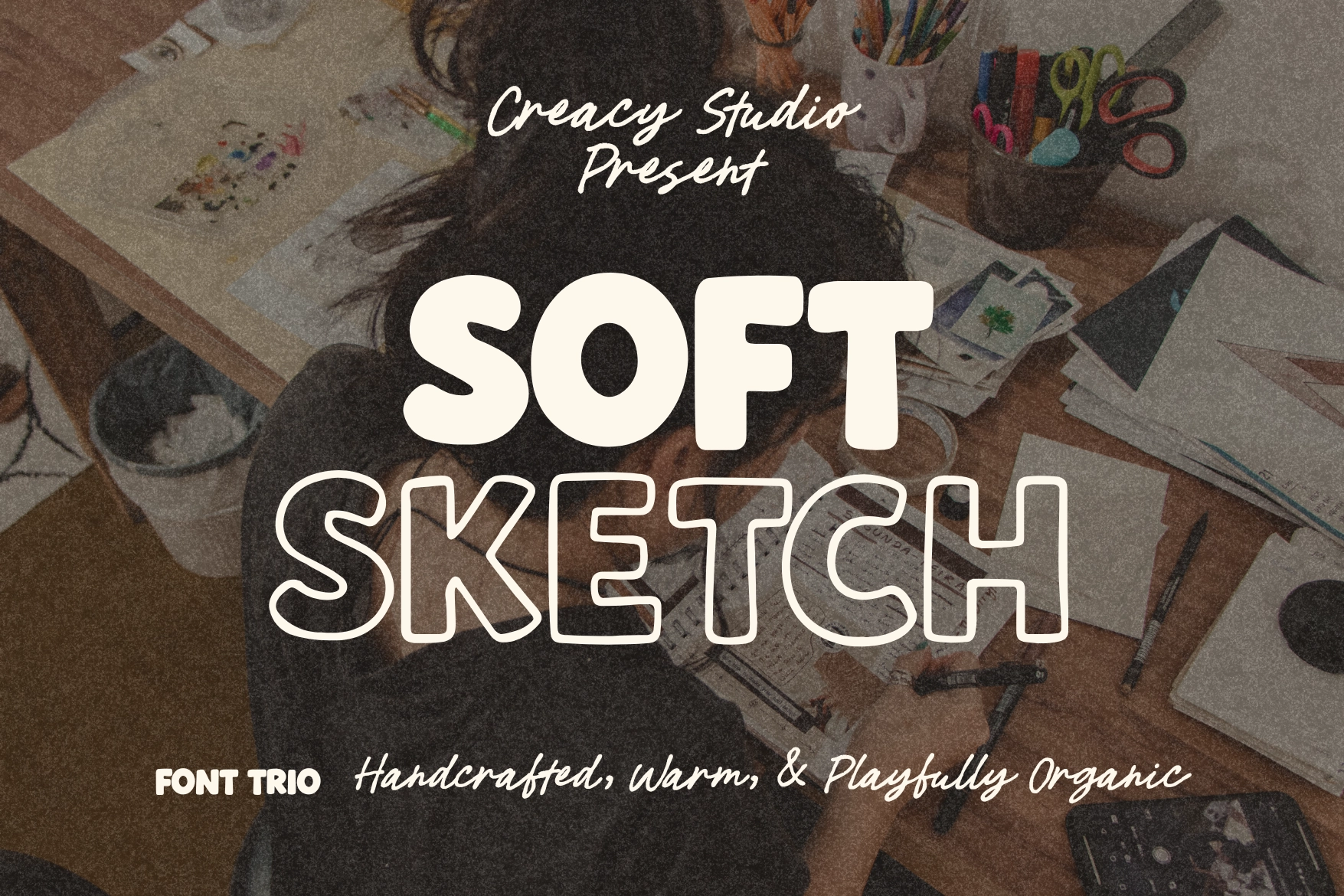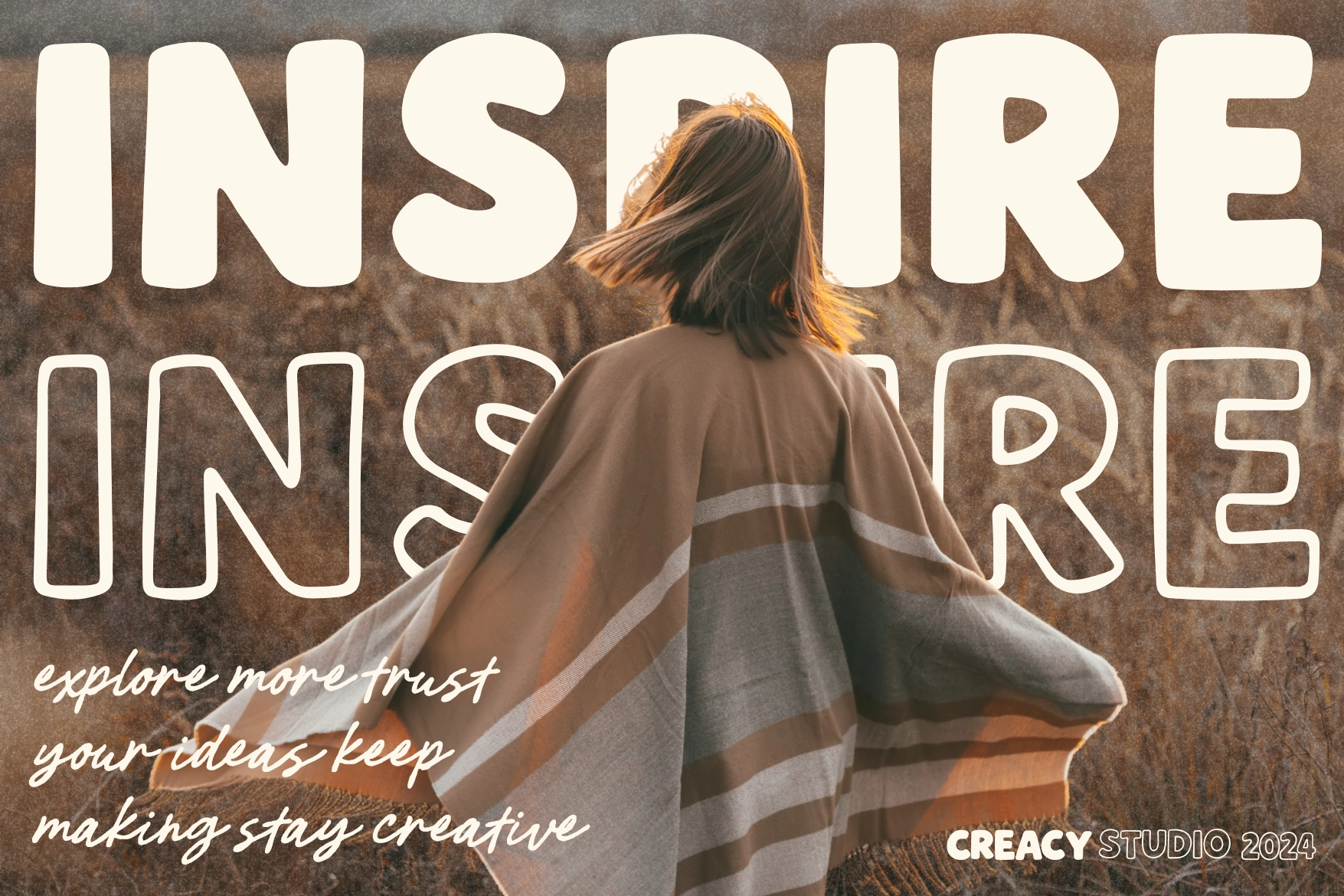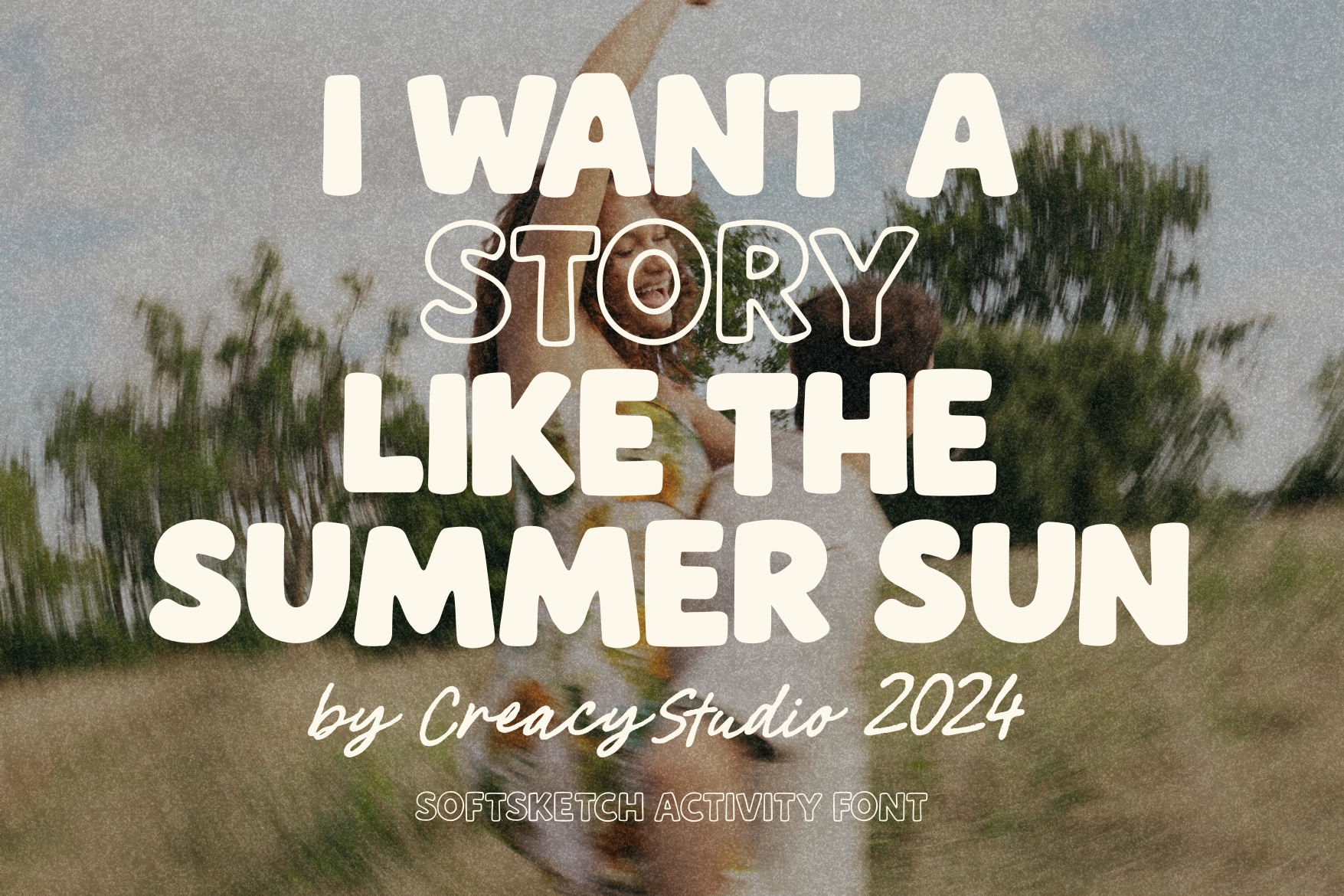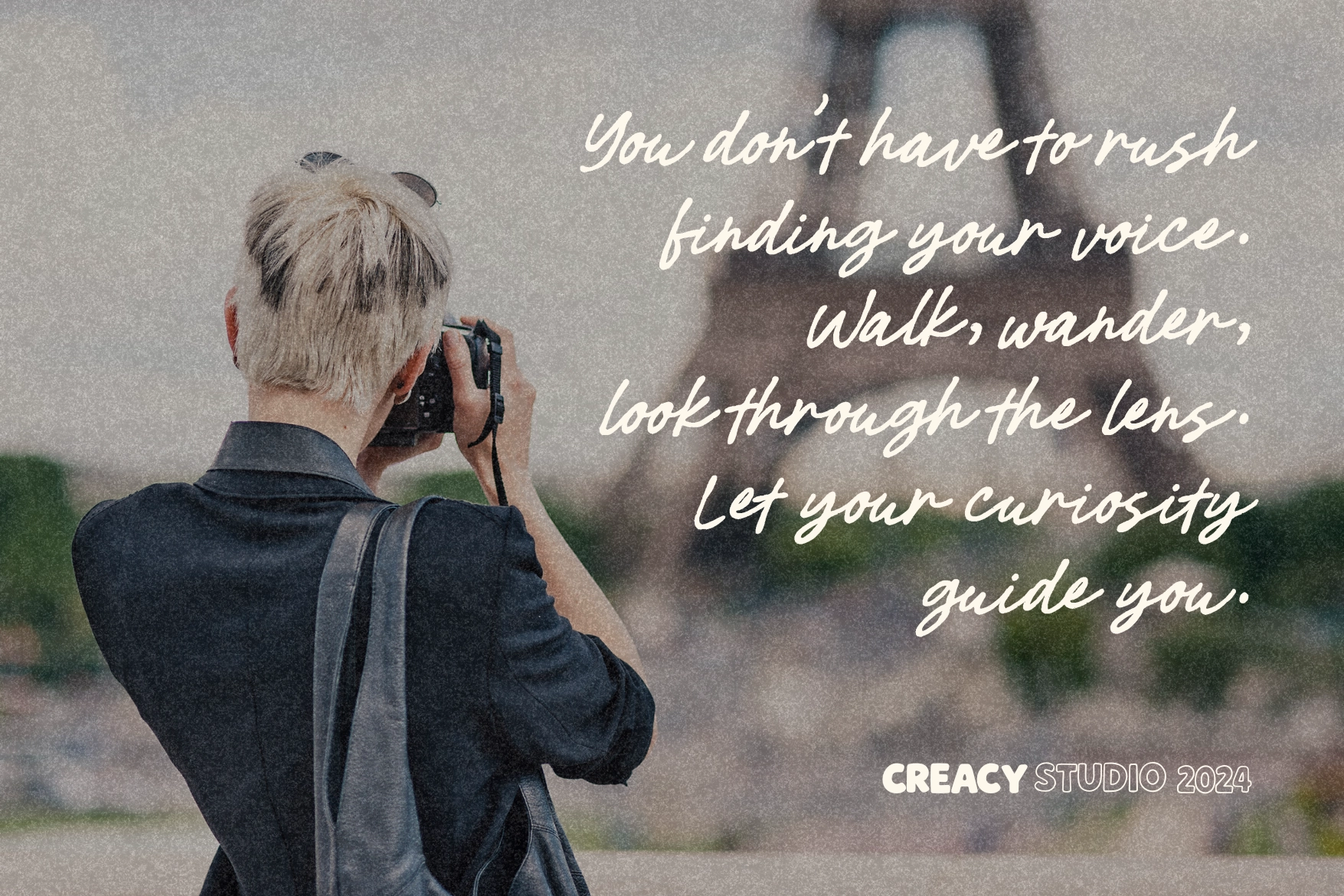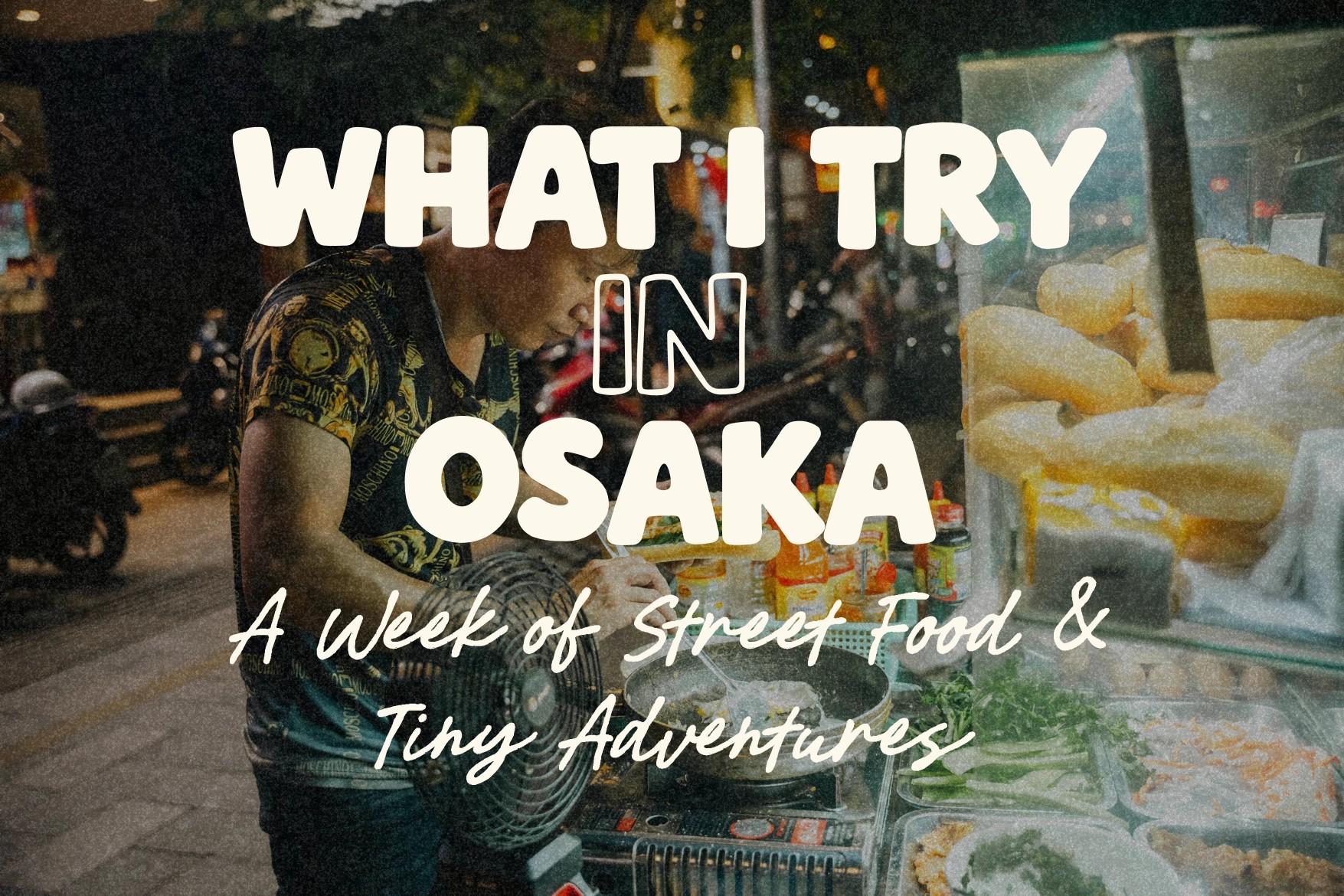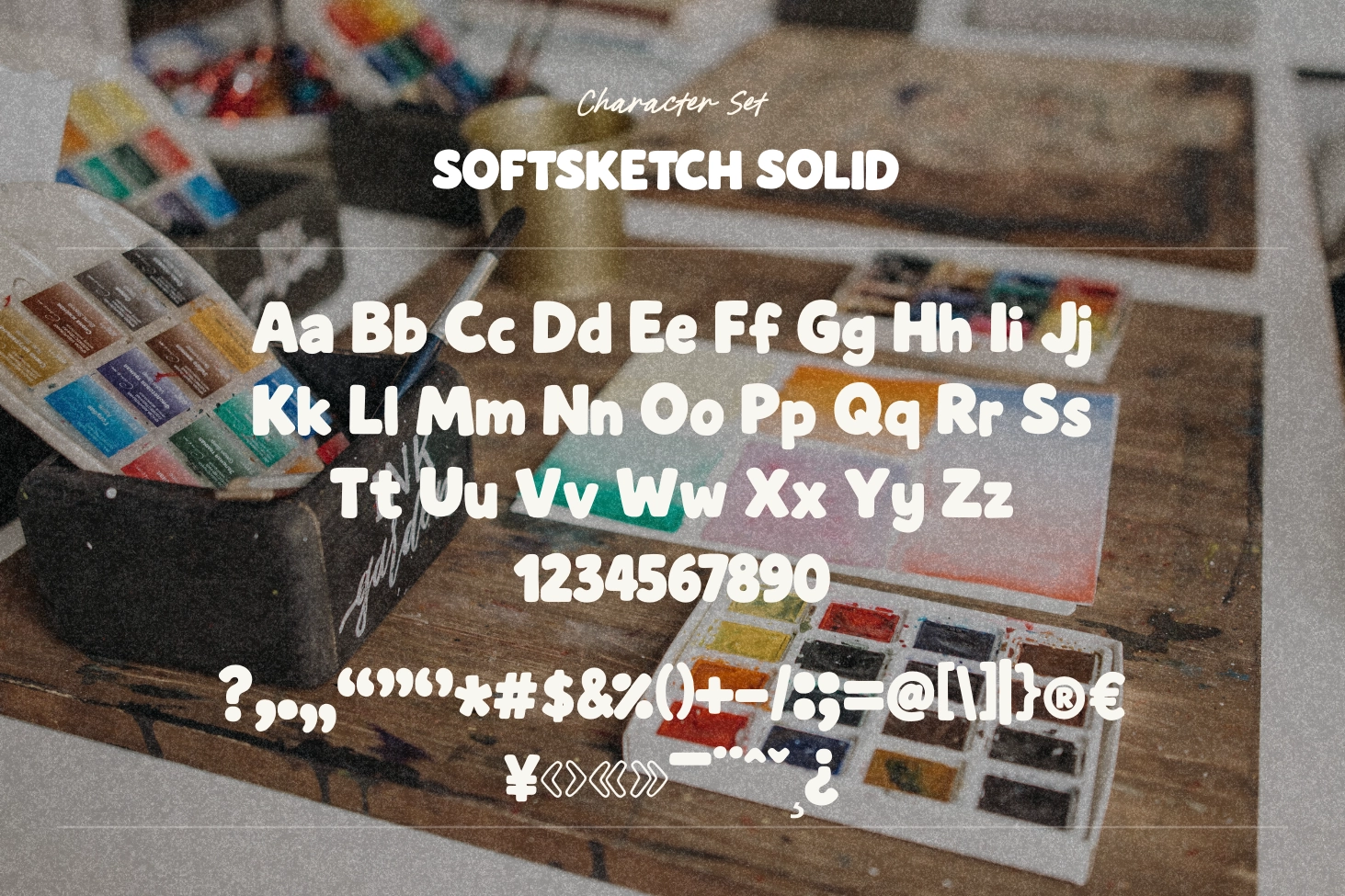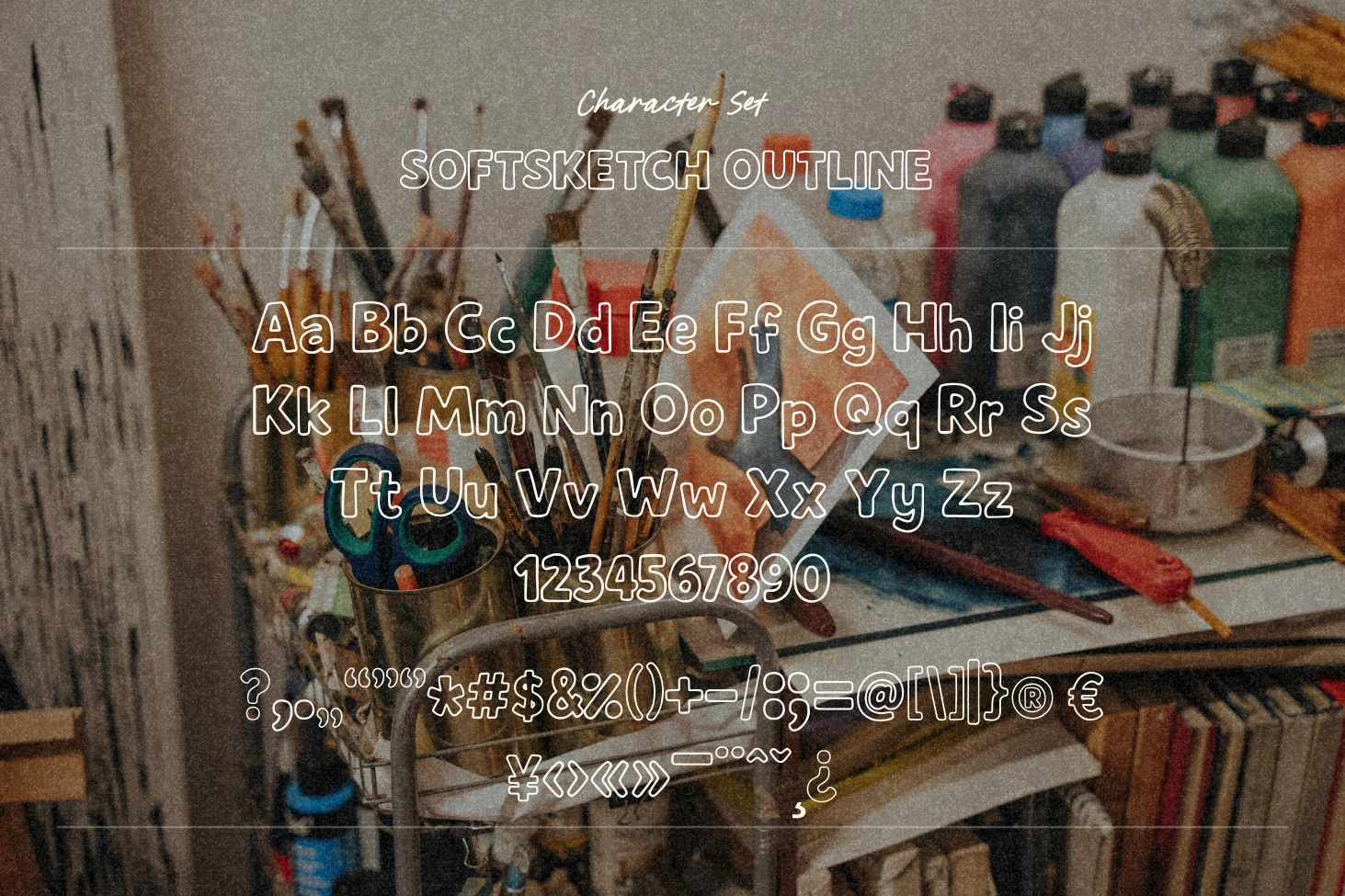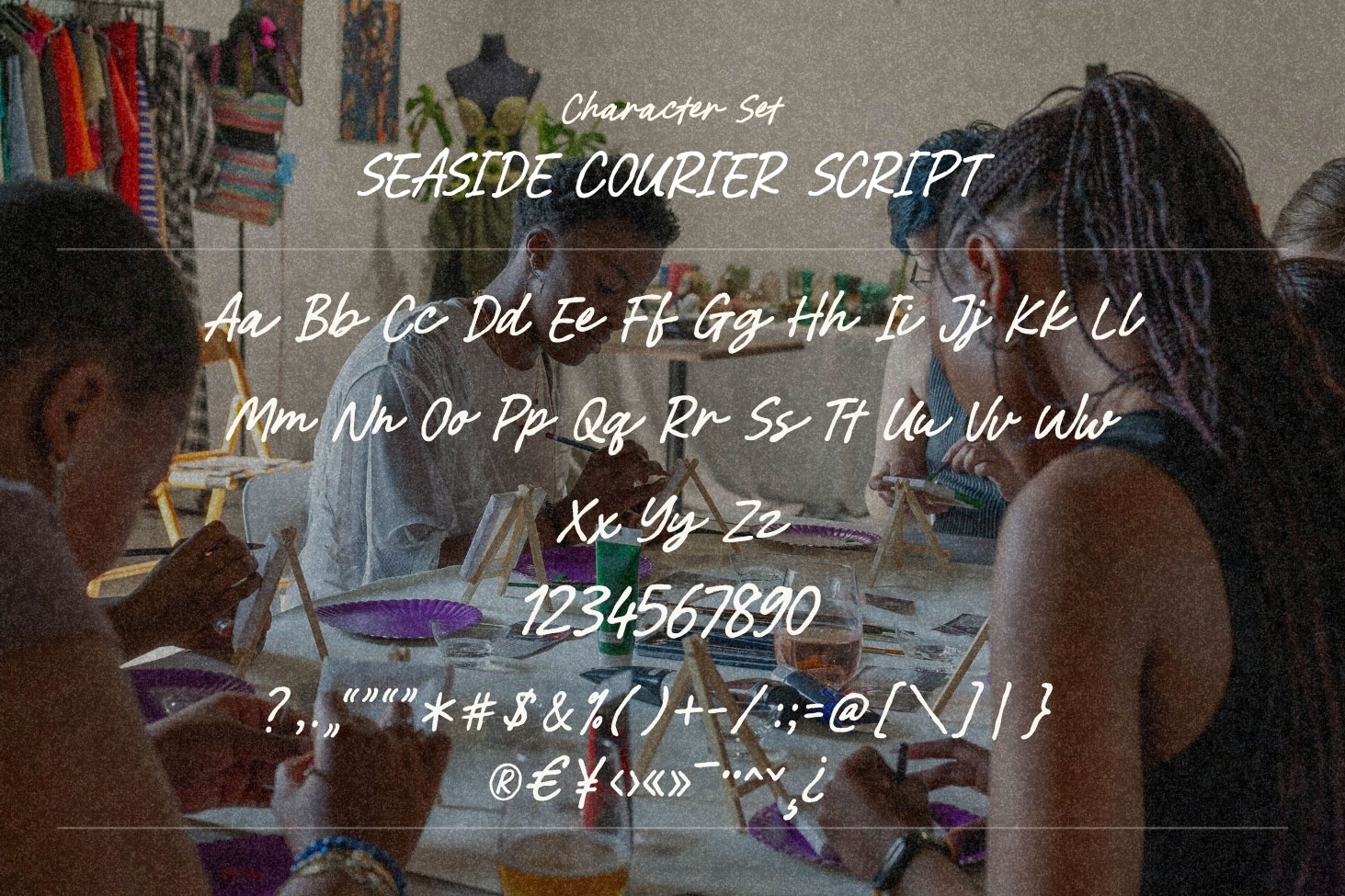
SoftSketch – Handcrafted Warm Font Trio
SoftSketch is a handcrafted font trio built to bring warmth, personality, and creative authenticity into modern design work. Inspired by sketchbook lettering and soft organic shapes, each style in the family delivers a friendly, expressive, and human touch—ideal for creative agencies, branding teams, and content creators.
This set includes SoftSketch Solid , SoftSketch Outline , and SoftSketch Script , crafted to complement each other seamlessly. Together, they offer a flexible typographic system that works beautifully across brand identities, social media campaigns, packaging, editorial graphics, journaling layouts, and lifestyle storytelling.
- Uppercase and lowercase
- Numbers, punctuation, symbols
Perfect For:
- Creative agency branding
- Social media and marketing content
- Packaging and product labels
- Photography and lifestyle graphics
- Logo design and editorial layouts
- Journals, quotes, and creative storytelling
- Handcrafted, organic look and feel
- Smooth, rounded shapes with a warm tone
- Three styles that pair naturally
- Clear display performance with soft personality
- Works great with photography, grain, and textured layouts